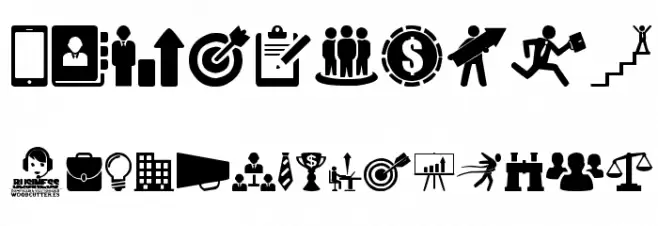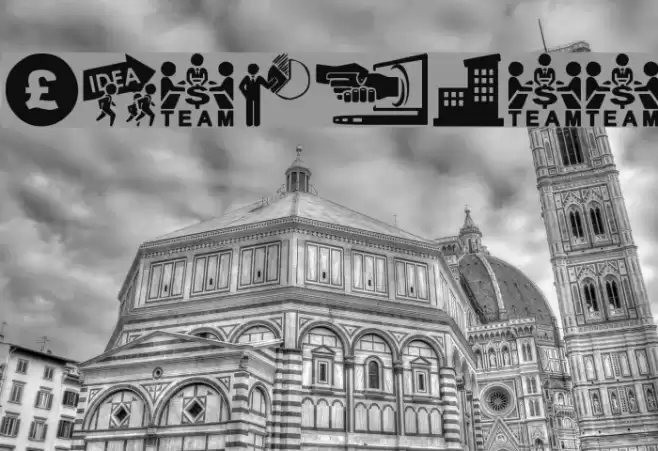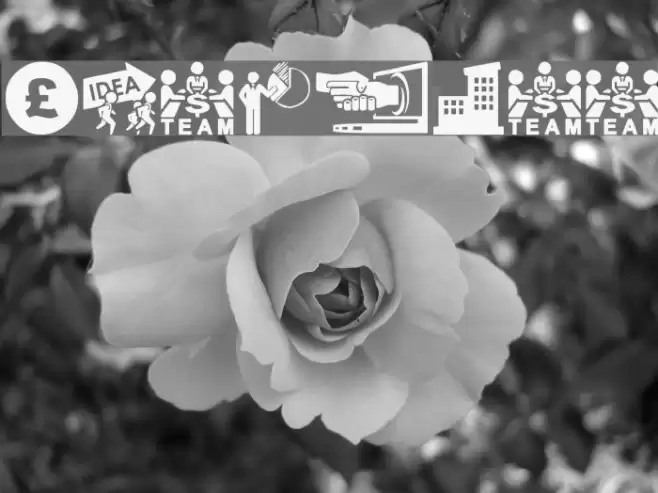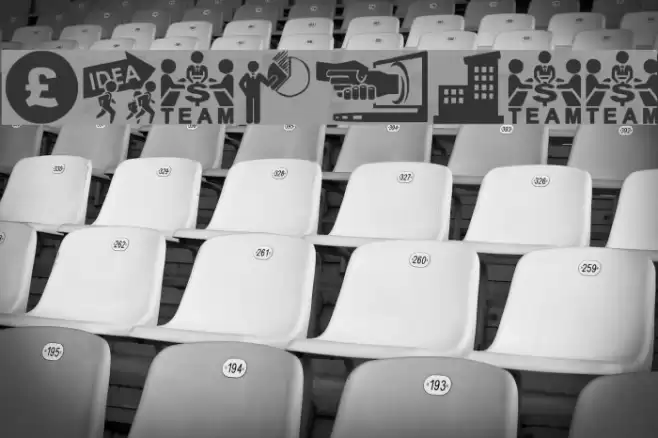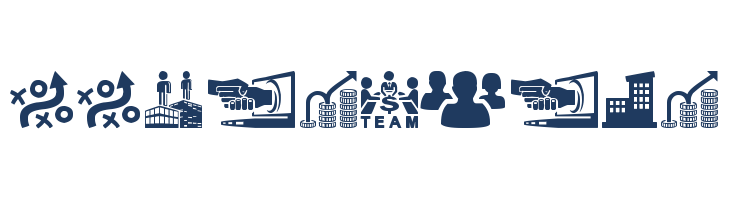
Business Font
Business Description
A collection of bold, business-themed pictograms and icons representing various corporate concepts such as communication, finance, teamwork, growth, and leadership. The icons are solid, high-contrast, and easily recognizable, designed in a modern, minimalistic style.
| Overall Style | Modern, Minimalistic, Professional |
| Use Case | Icons, Infographics, Presentations, Branding |
| Proposed Projects | Corporate presentations, infographics, business cards, websites, app interfaces, educational materials. |